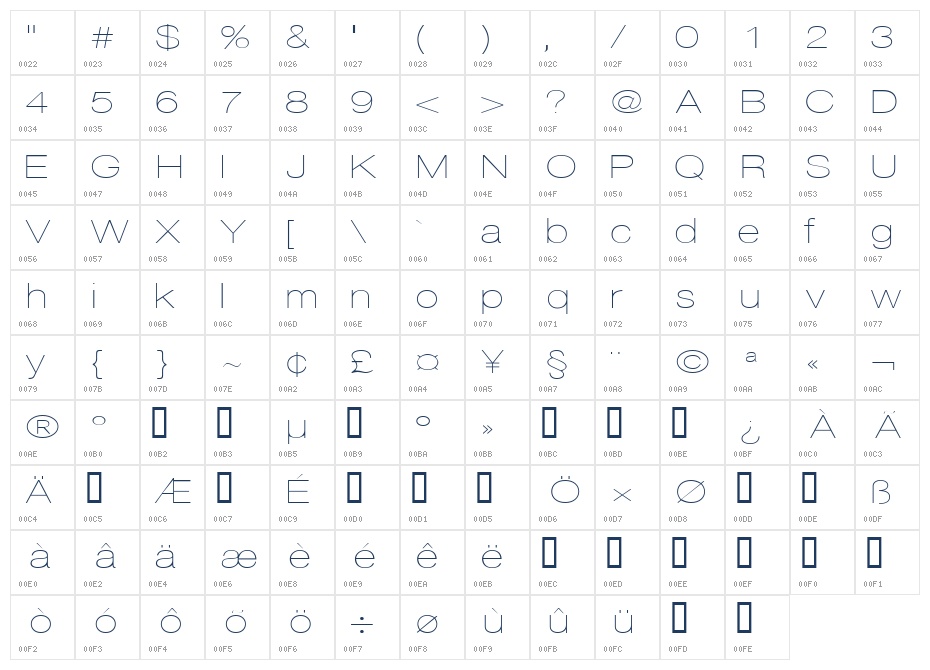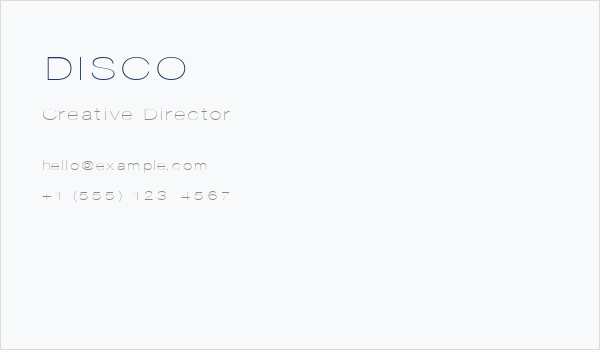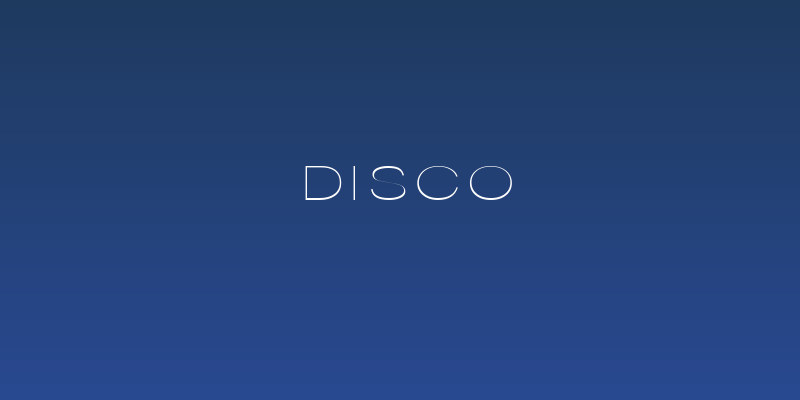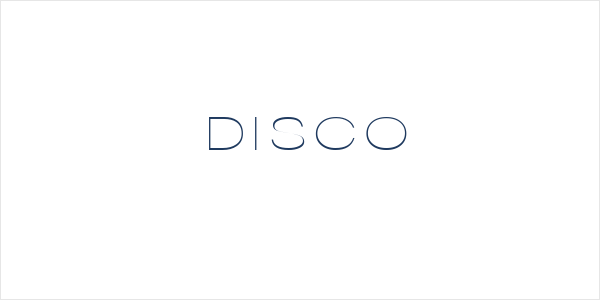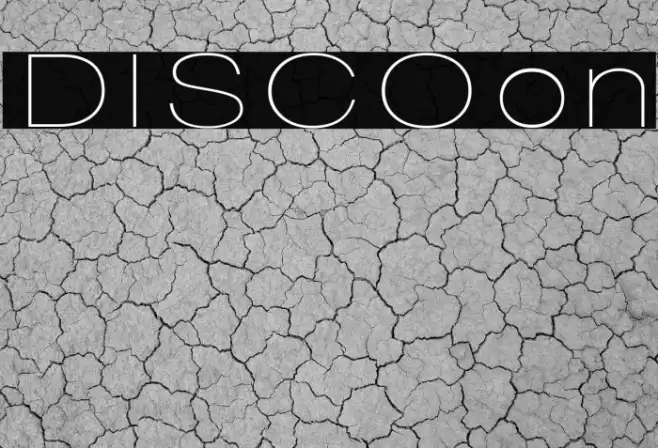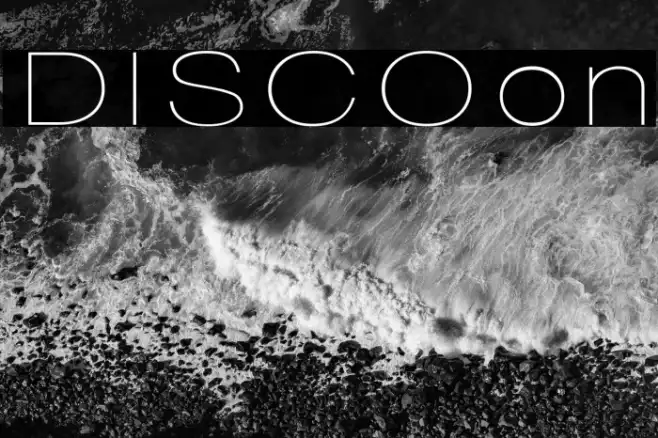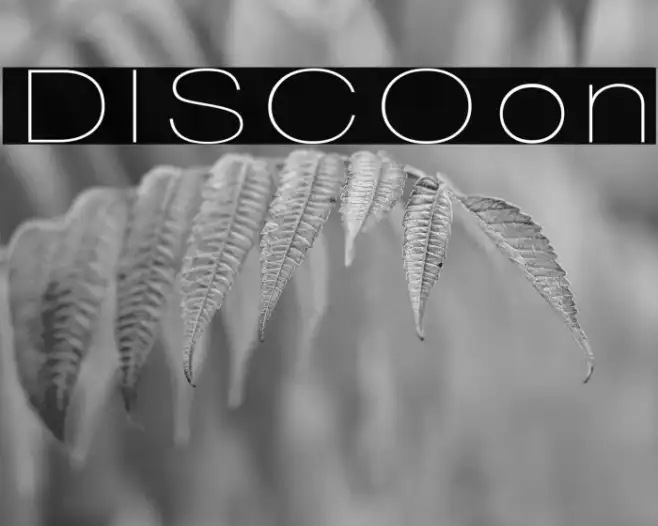
DISCO Font
DISCO Description
A thin, geometric, sans-serif font with a modern and minimalistic style, characterized by clean lines and a light weight.
| Overall Style | Modern, Minimalist |
| Use Case | Headlines, Body text, Logos, Digital interfaces |